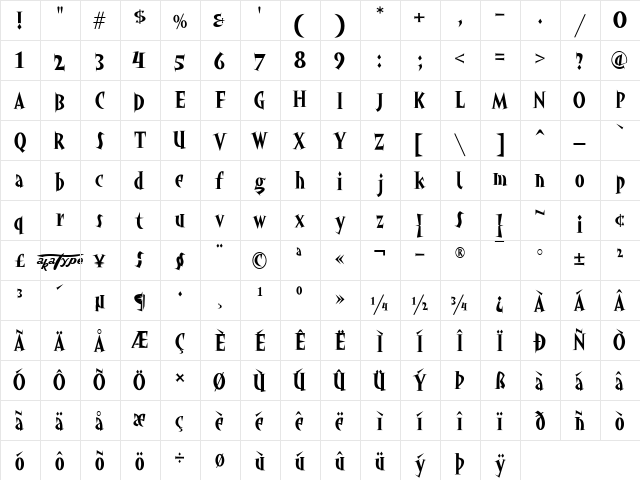
akaHoggle Regular
| Foundry | James Milligan |
| Designer | James Milligan |
Design Context for akaHoggle Typeface
akaHoggle is a composed and adaptable typeface that performs quietly and consistently across a wide range of design contexts.